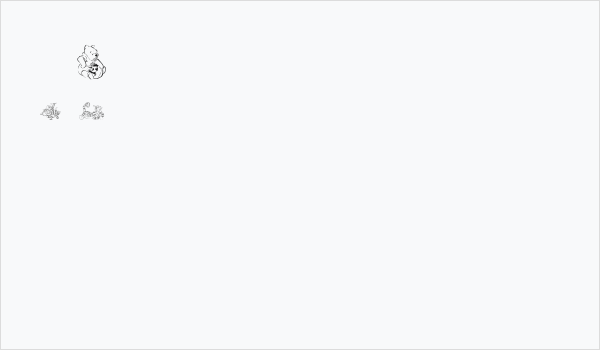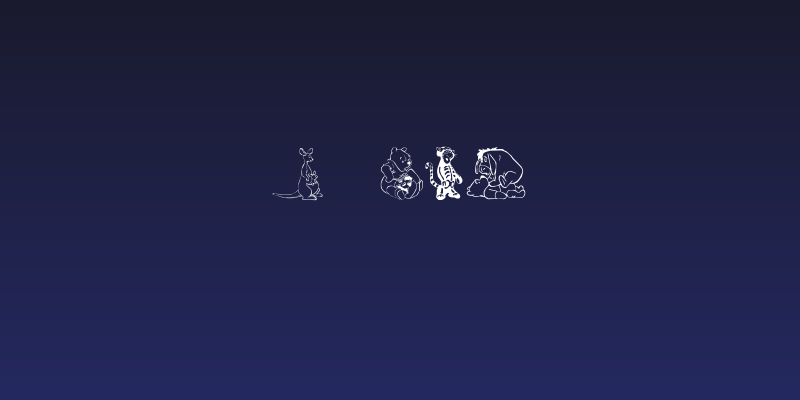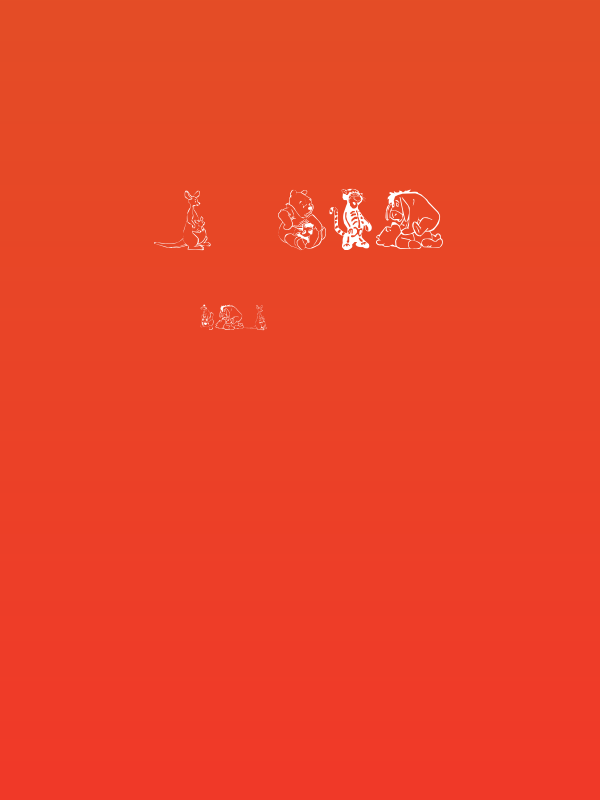
Pooh Bear Font
| Stil general | Playful, whimsical, illustrative |
| Caz de utilizare | Headlines, logos, decorative text in children's media |
| Proiecte propuse | Children's books, themed party invitations, playful branding, and merchandise related to Winnie the Pooh or children's entertainment. |